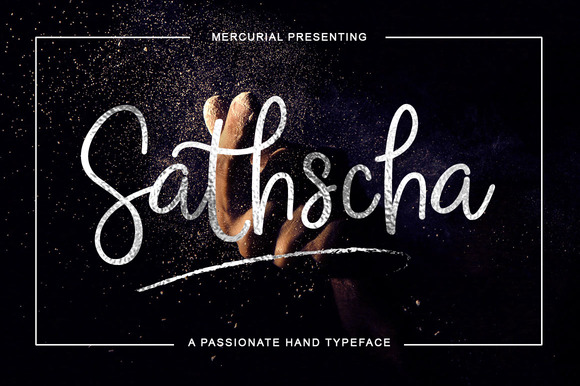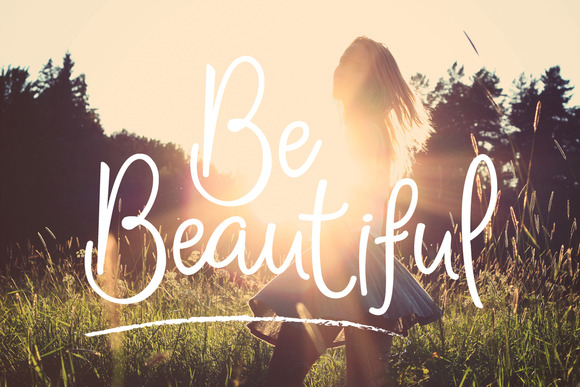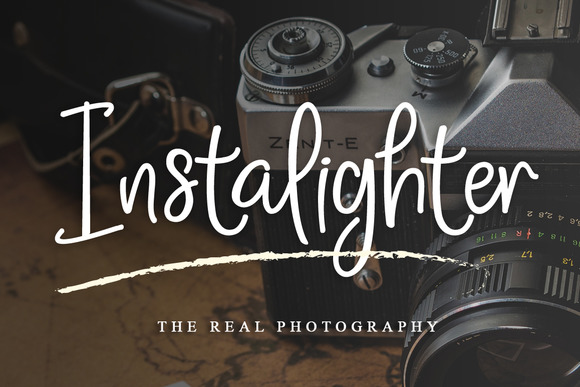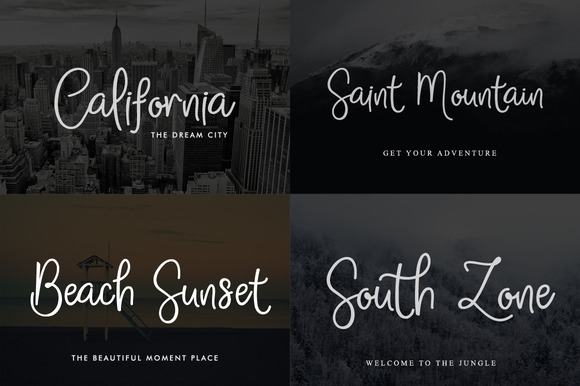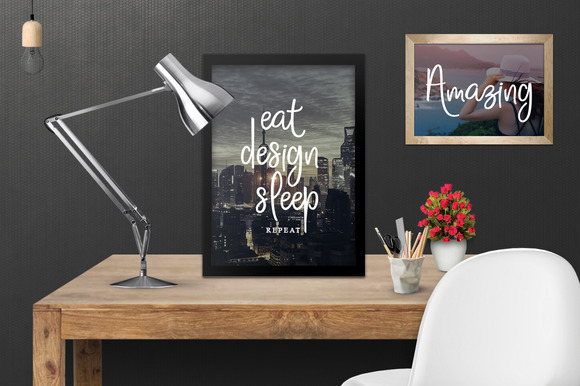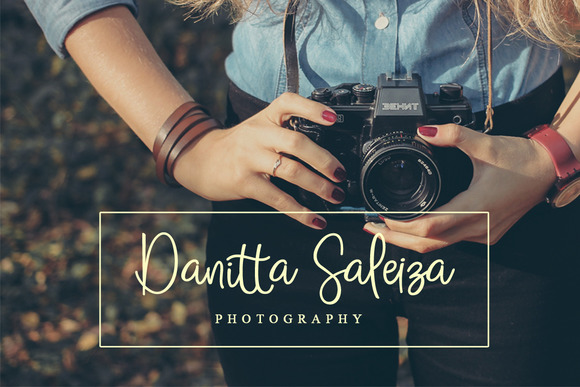
Sathscha
About Sathscha Font
Sathscha is a charming handwritten font. It’s smooth and elegant and will leave a great impression. The Sathscha font features loads of extra characters and swashes and is packed with 356 glyphs. Add this lovely freebie to your creations and take your designs to the next level!